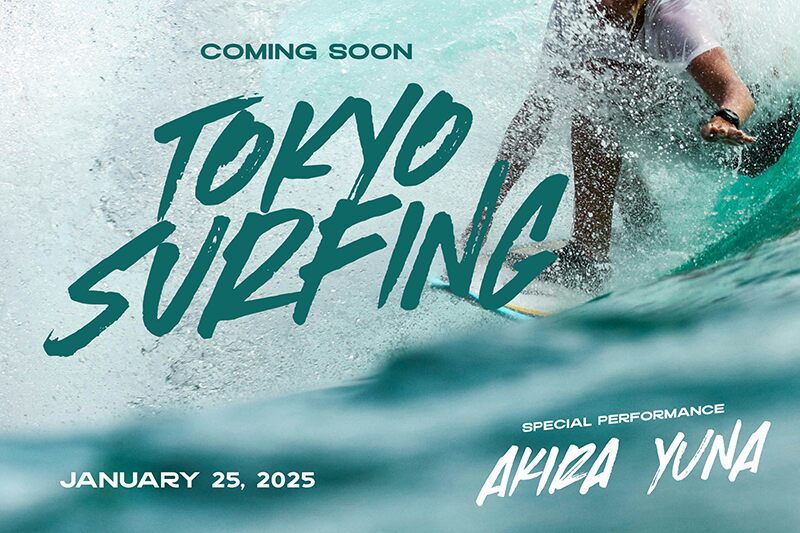
Brickflare font is a free brush font designed by Riyadh Rahman. It captures a sleek and energetic style, packed dynamic feel which makes this suitable for modern and expressive projects. This free font is casual in its brush strokes which represent its contemporary finish. Its vibrant and urban style can be observed from the letters which are full of expressiveness and detail.
Create memorable graphics for campaigns as you incorporate Brickflare font into your work. Font recommended use cases include sports branding, lifestyle marketing, or any other casual audience. Other possible use cases include album covers, web banners, flyers, posters, business cards, and social media branding.